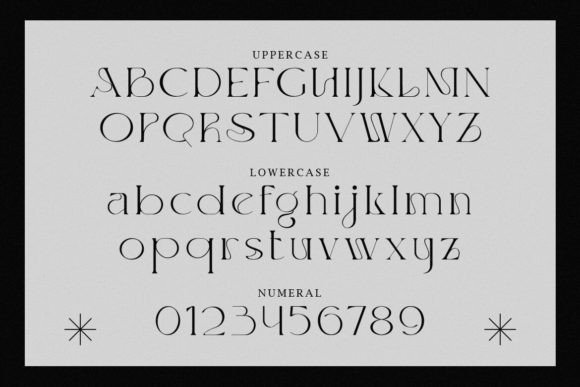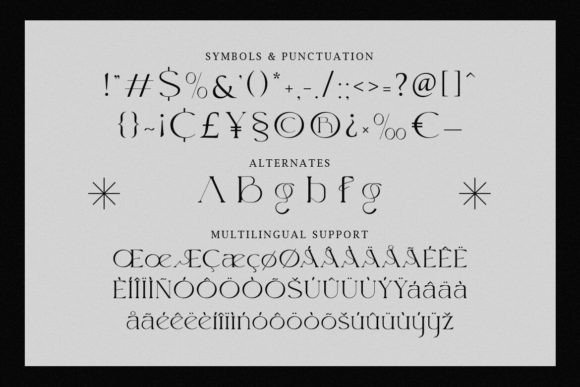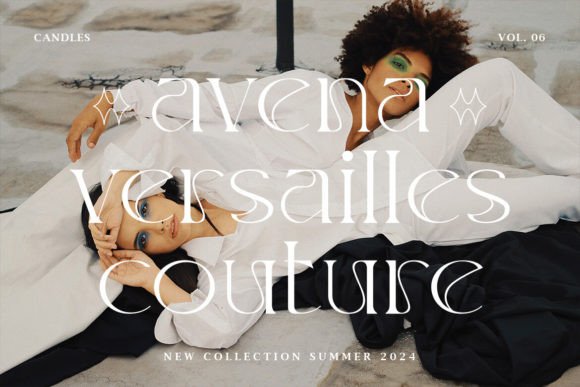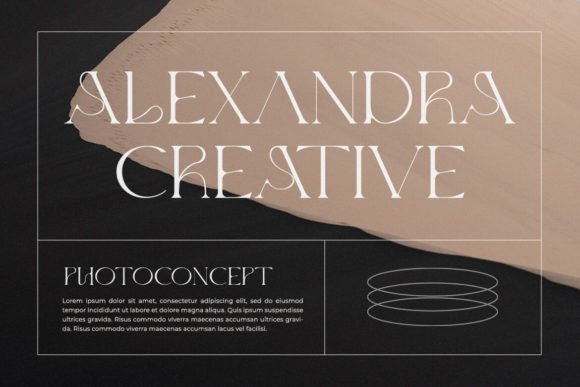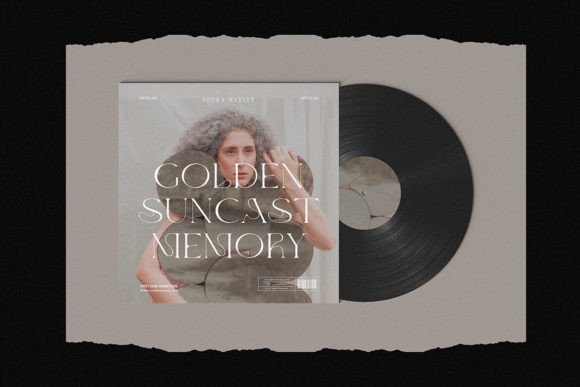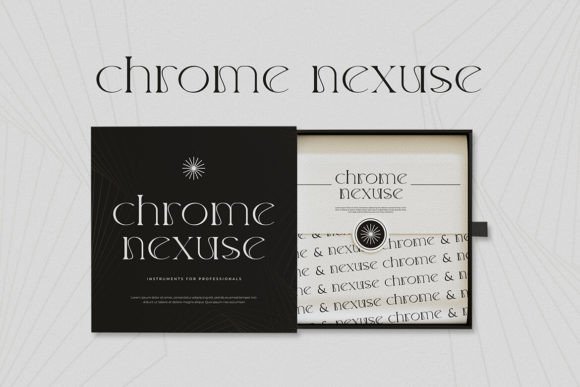
Introduction to Revaz Font
As designers, we’ve all been there – staring at a blank page, searching for that perfect font to elevate our creative project. The struggle is real, but what if I told you that your search is over? Enter Revaz Font, a stunning display font that’s about to take your designs to the next level.
Imagine a font that seamlessly blends elegance with modern flair, effortlessly adding a touch of sophistication to your branding, editorial layouts, and packaging designs. With its fluid serifs and refined letterforms, Revaz Font offers the perfect blend of versatility and dynamism, making it a valuable resource for designers looking to create high-quality designs with a transparent background.
Key Features of Revaz Font
- High-quality design resource for creative projects, perfect for graphic designers and artists.
- Includes multiple font styles and weights, allowing for versatility in design applications.
- Transparent background option, ideal for use on images with complex backgrounds.
- High-resolution fonts, suitable for use in print and digital media, with resolutions up to 300 DPI.
- Perfect for use in logos, branding, and typography-based design projects, due to its clean and modern aesthetic.
Honest Review: Revaz Font
As a designer, I’m always on the lookout for high-quality design resources to enhance my creative projects. Recently, I stumbled upon the Revaz Font, and I’m excited to share my honest review.
- ✨ High-quality font with a unique, modern design that’s perfect for minimalist projects.
- ✨ Transparent background, making it easy to use on any design background.
- ✨ Great for creating a professional, clean look in logos, brochures, and other marketing materials.
- ⚠️ Limited font styles available, which might not be ideal for designers who need a wide range of options.
- ⚠️ Not suitable for projects that require bold, dramatic fonts.
Overall, I’m impressed with the Revaz Font. Its clean design and transparent background make it a great choice for designers who want a professional look without the hassle of complicated fonts. While it may not be perfect for every project, it’s definitely a valuable addition to any design resource library.
How to Use Revaz Font
Getting the Most Out of Revaz Font
To get the most out of Revaz Font, use it in combination with other design elements that complement its elegant look. Experiment with different font sizes, colors, and arrangements to create visually appealing designs.
Revaz Font is commonly used in a variety of creative projects, including graphic design, branding, and marketing materials. Its high quality and elegant design make it an ideal choice for presentations, brochures, and websites.